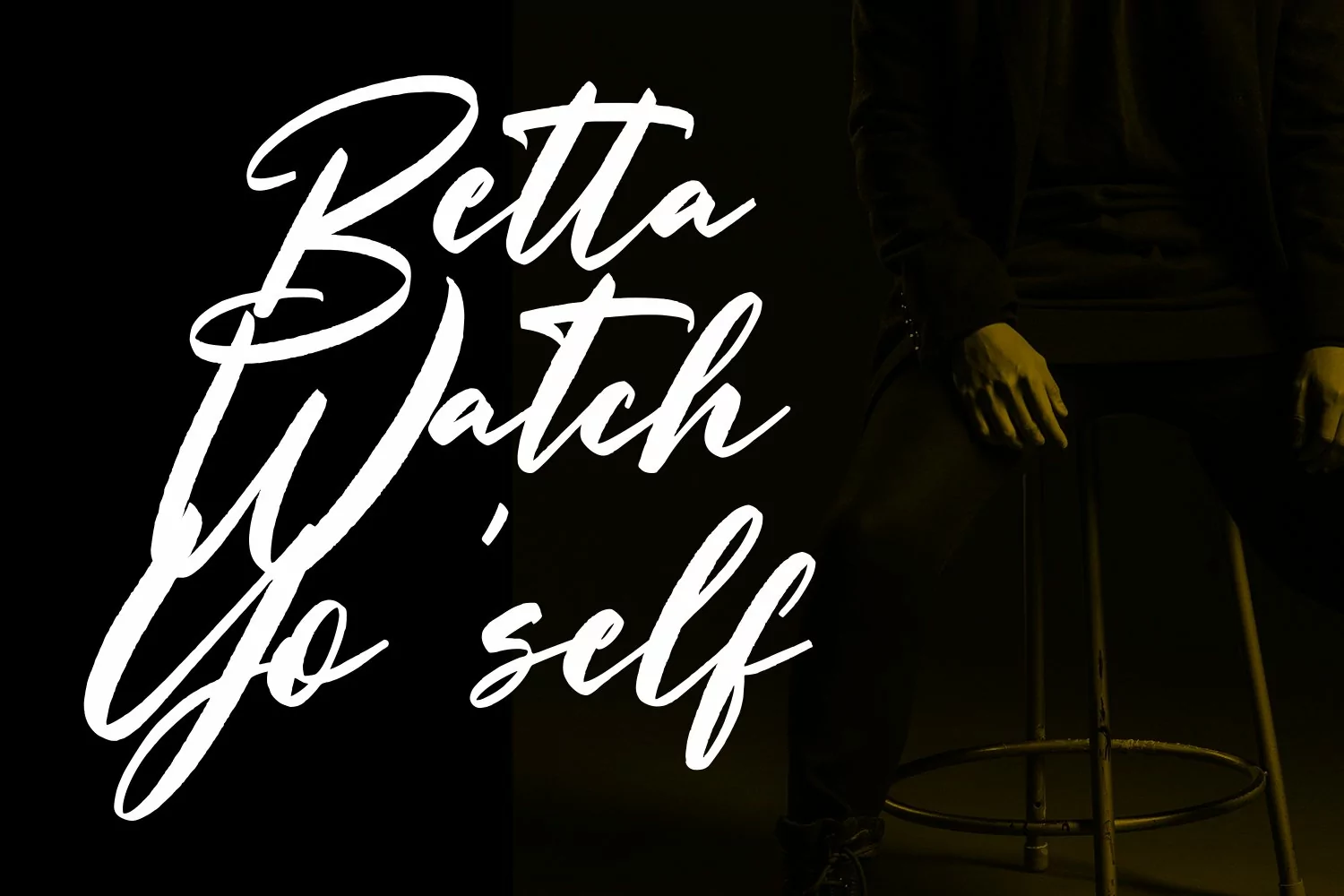
Jollynorly is cute script font. With high contrast stroke, slanted and fun character with a bit of ligatures. To give you an extra creative work. Jollynorly font support multilingual more than 100+ language. This font is good for logo design, Social media, Movie Titles, Books Titles, a short text even a long text letter and good for your secondary text font with sans or serif. Make a stunning work with Jollynorly font.
Jollynorly